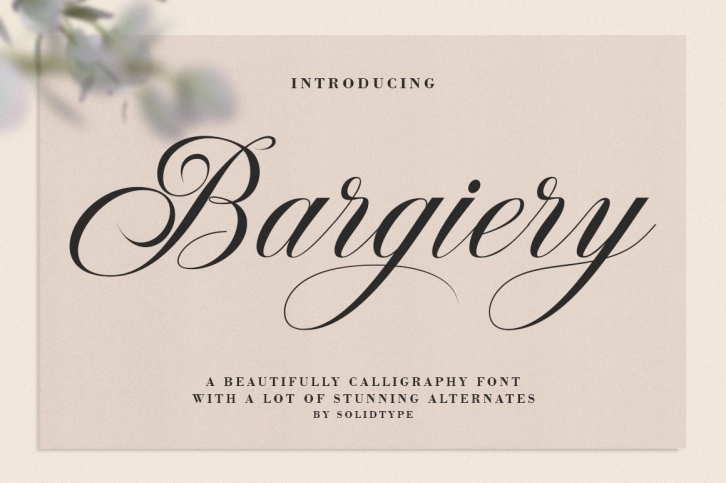
Bargiery Script is a great font that was designed by Solidtype. Imagine the amount of combinations you can create using this font! The archive is 8.47 MB and it was released on December 22, 2020. Bargiery Script looks beautiful on wedding invitations, greeting cards, logos, posters, labels, t-shirt designs, logos, business cards and is perfect for use in ink or watercolor works, fashion, magazines, packaging and food menus, children's books and more!